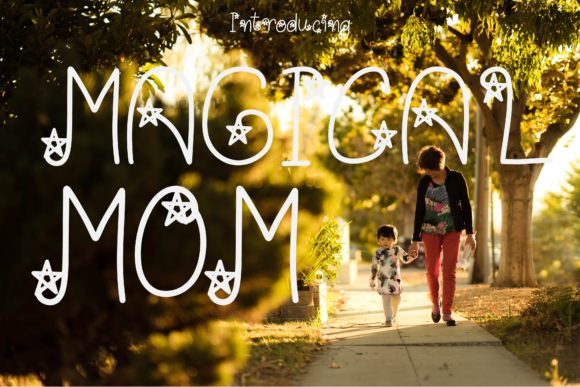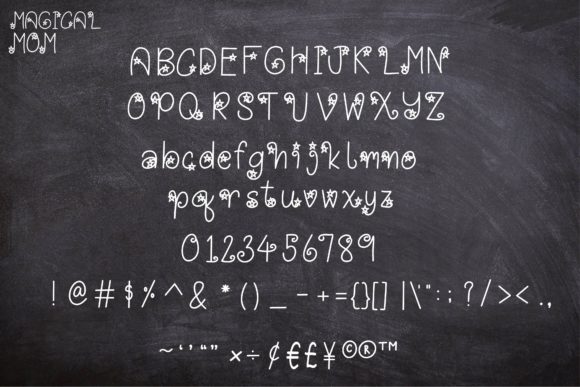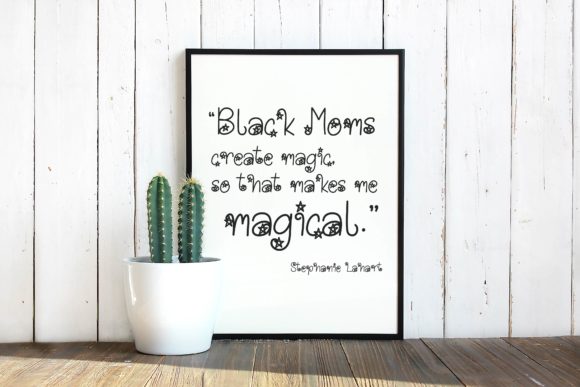
Magical Mom Font
About Magical Mom Font
Magical Mom is a cute handwritten font. It features star-themed characters that will take your crafting projects to the next level! Whether you’re looking for fonts for Instagram or calligraphy scripts for DIY projects, Magical Mom will turn any creative idea into a true piece of art!